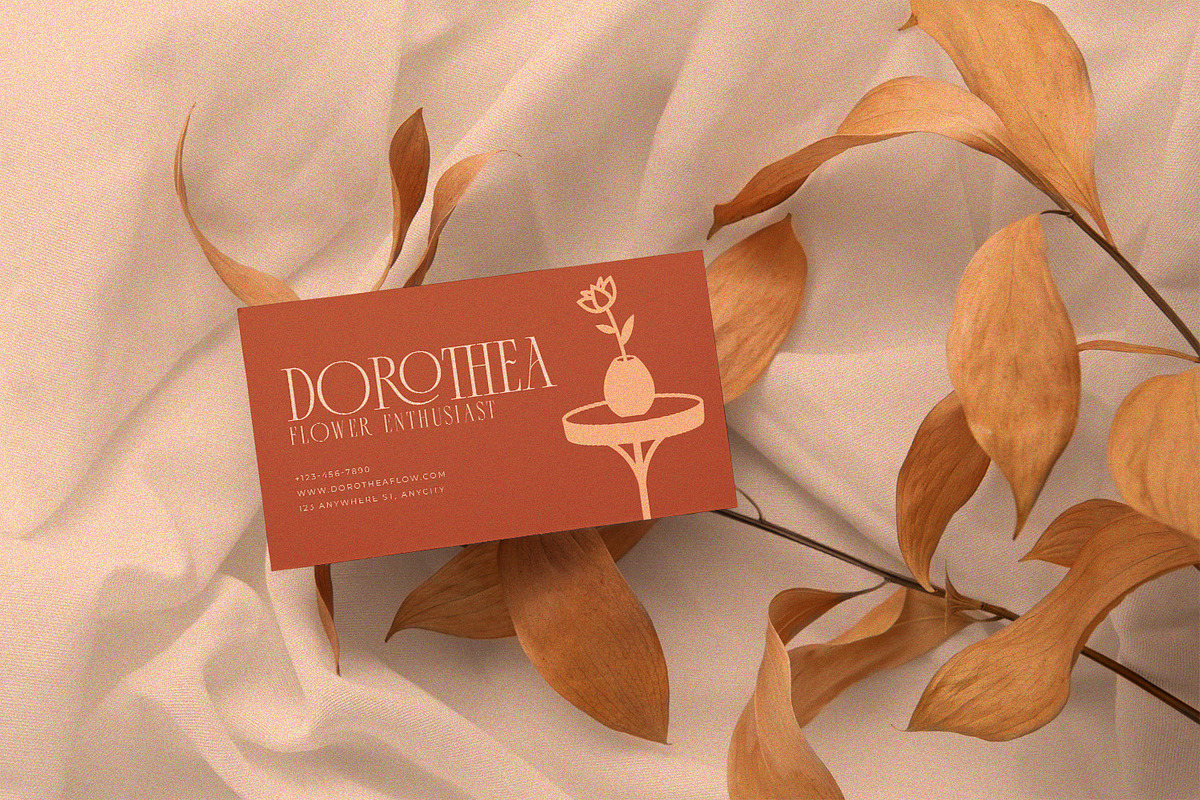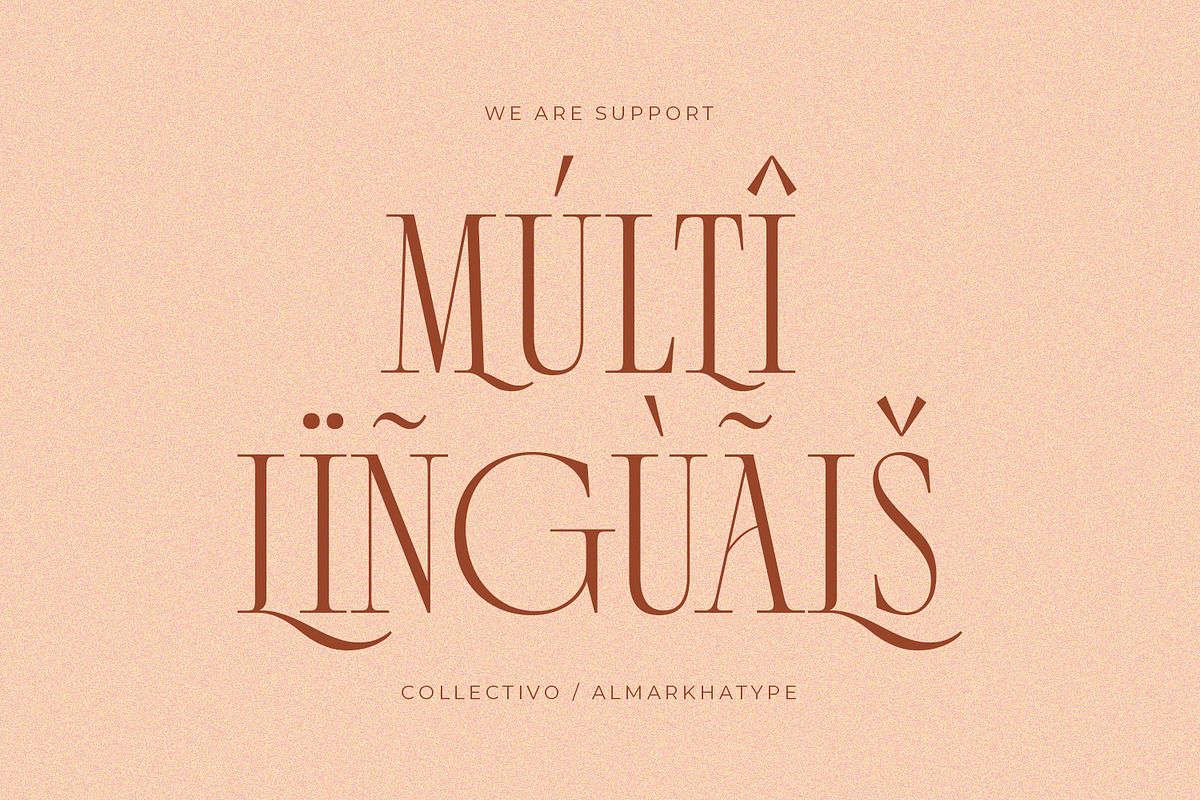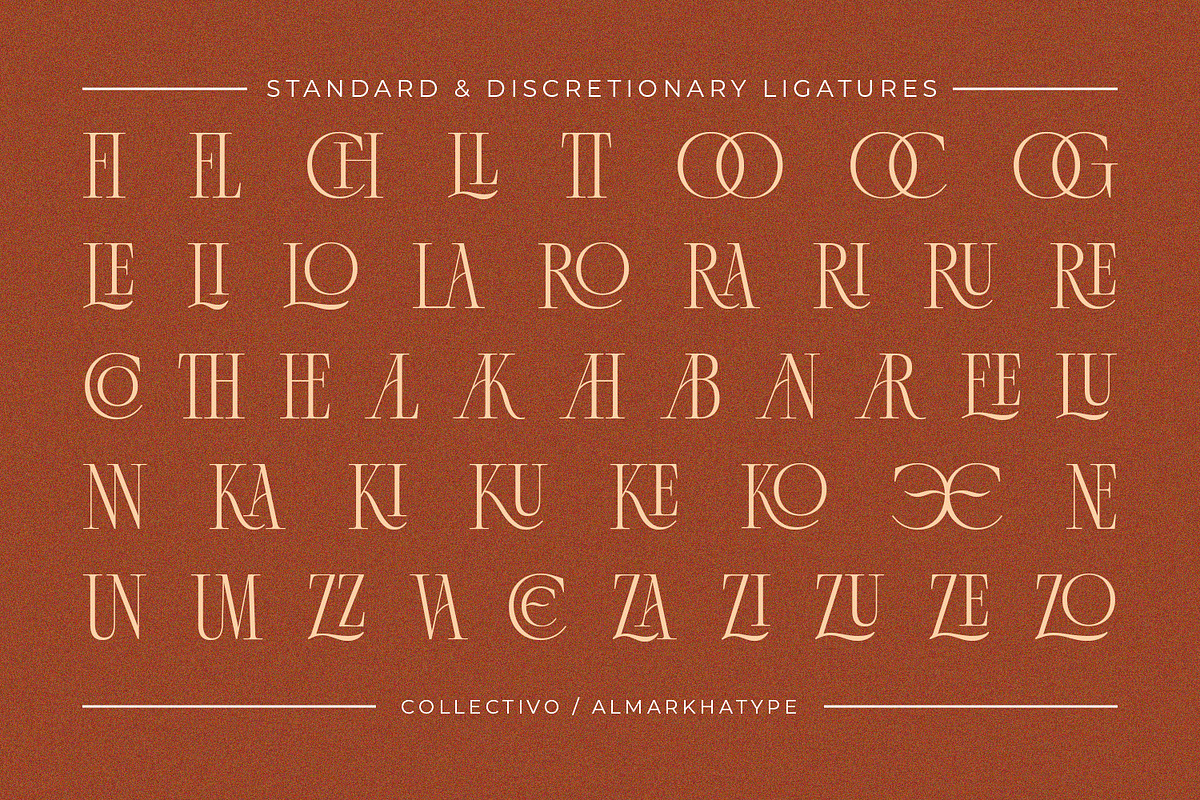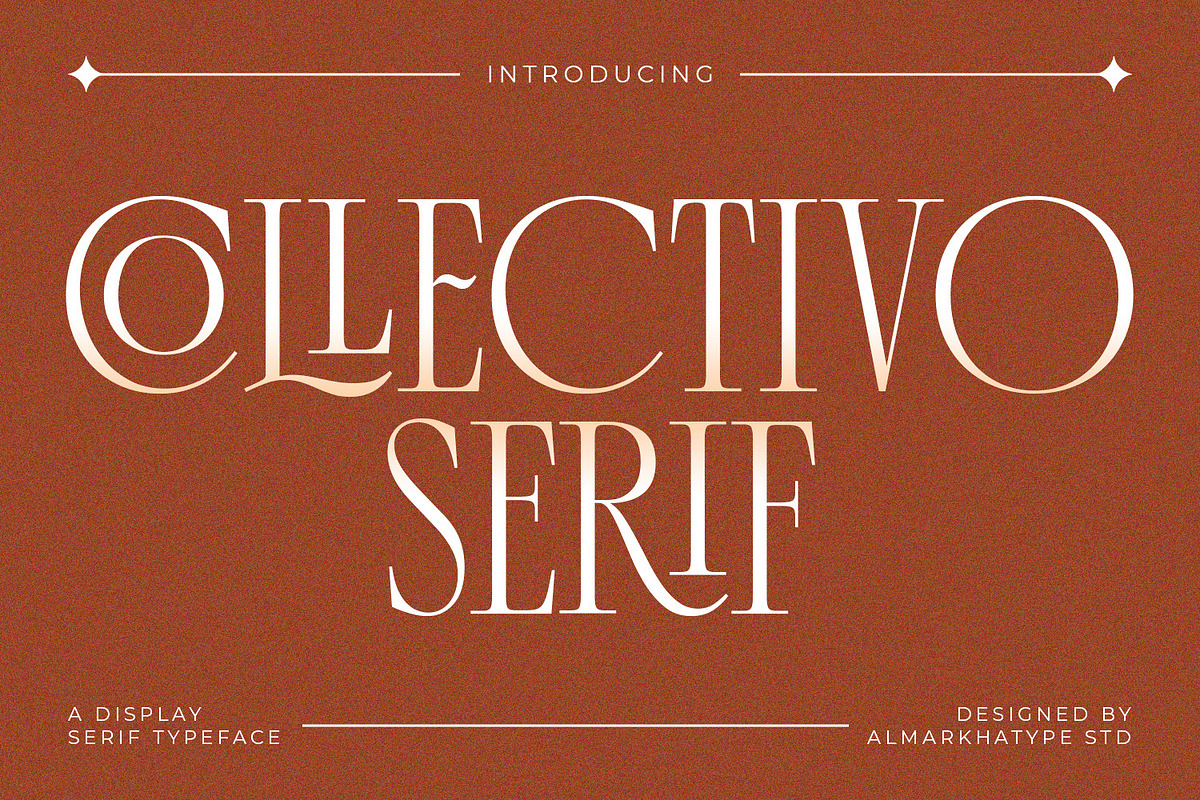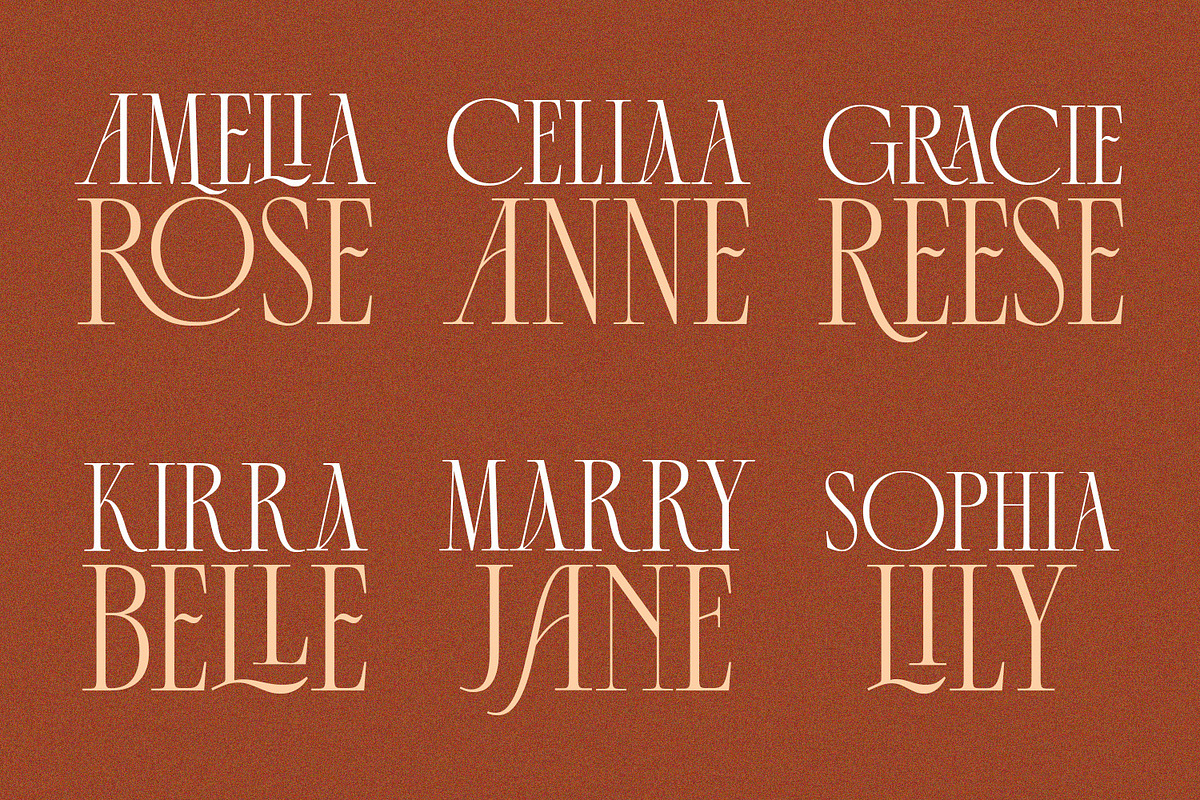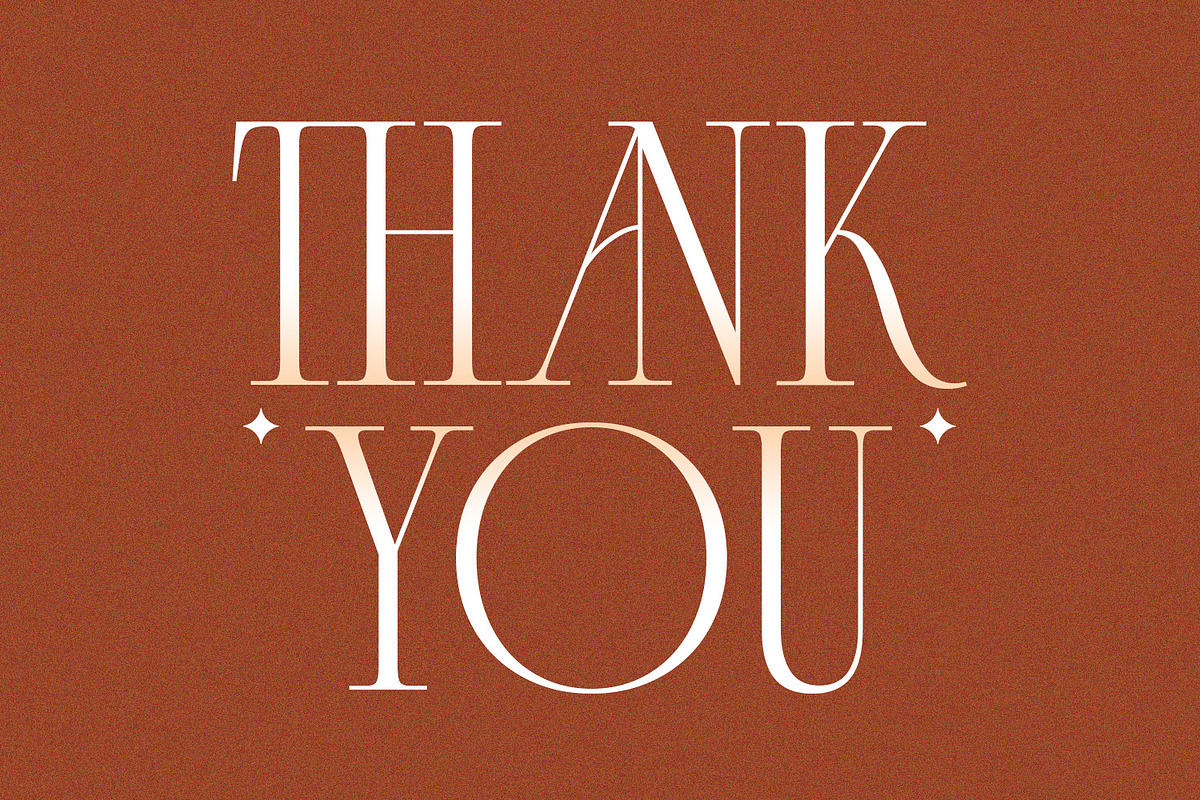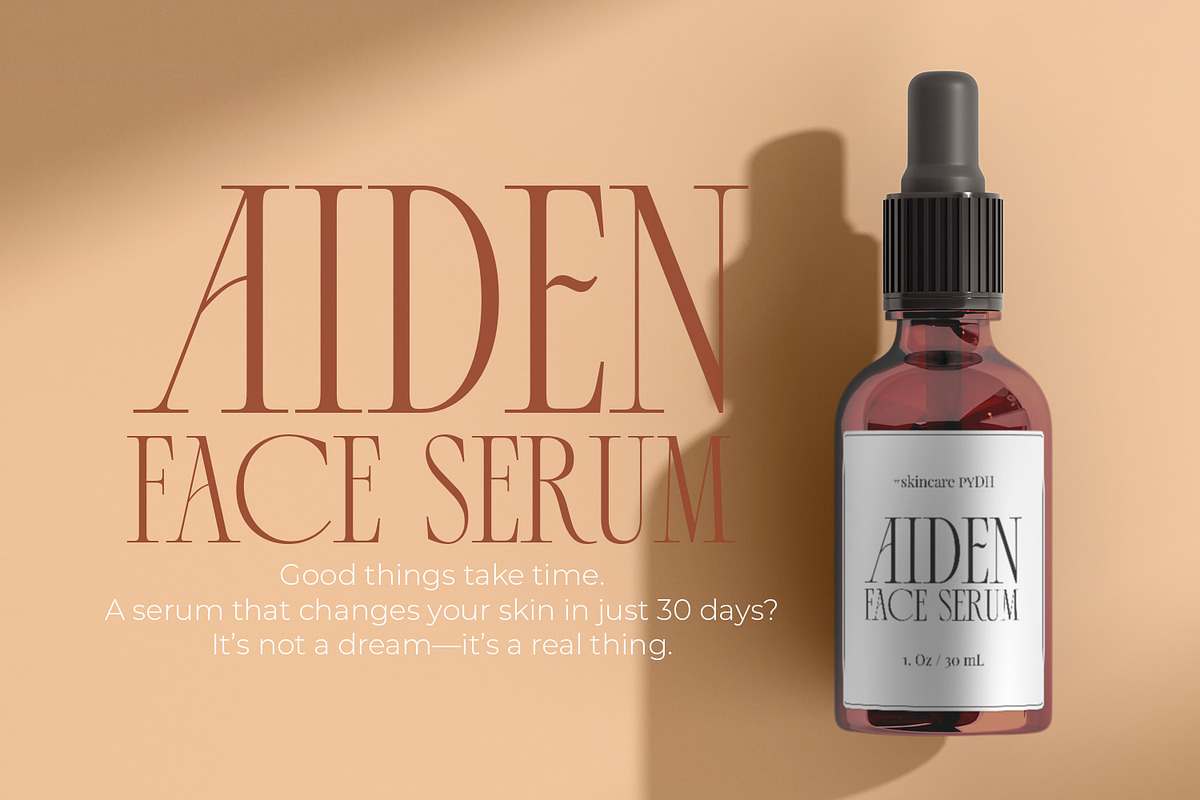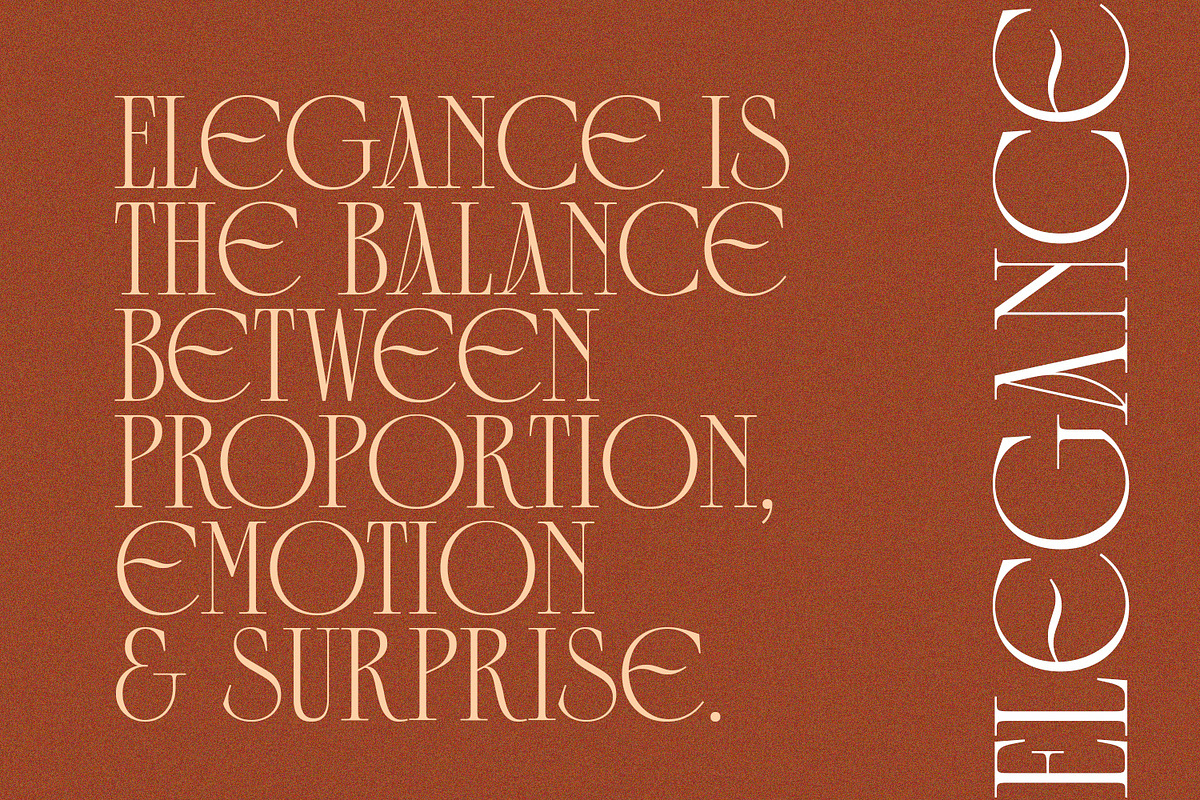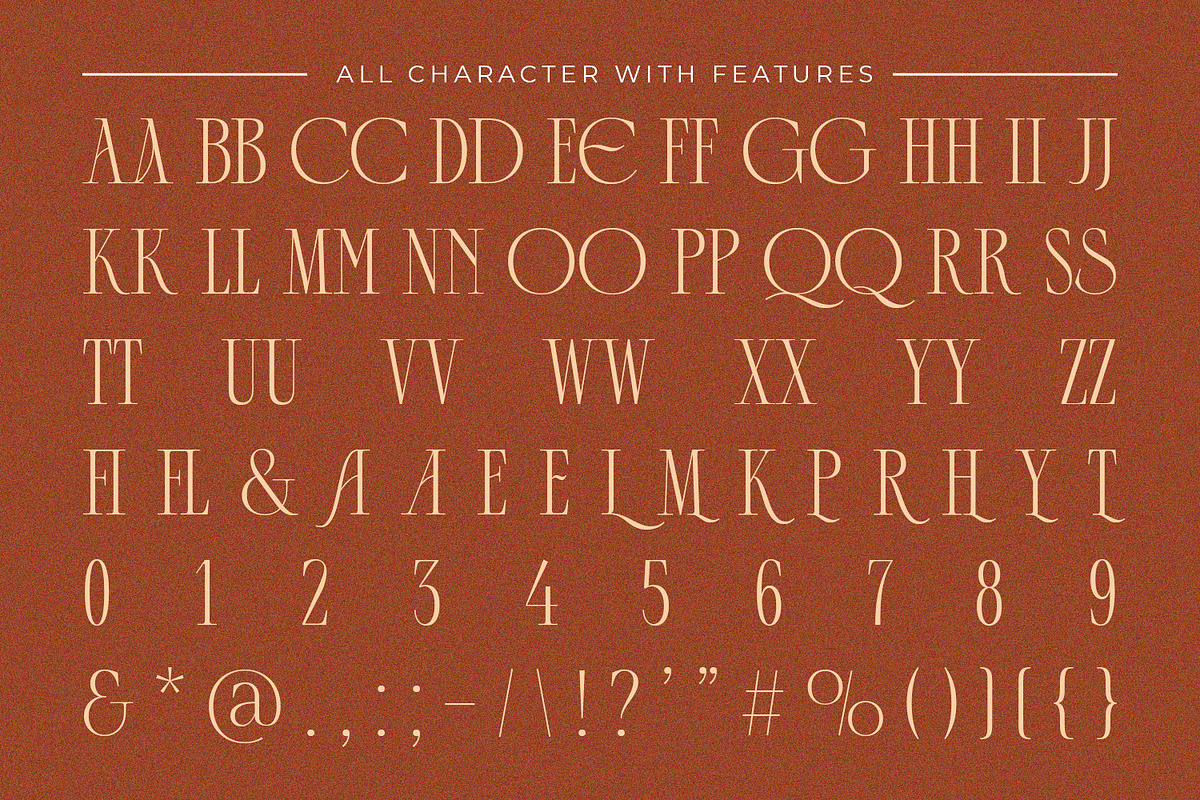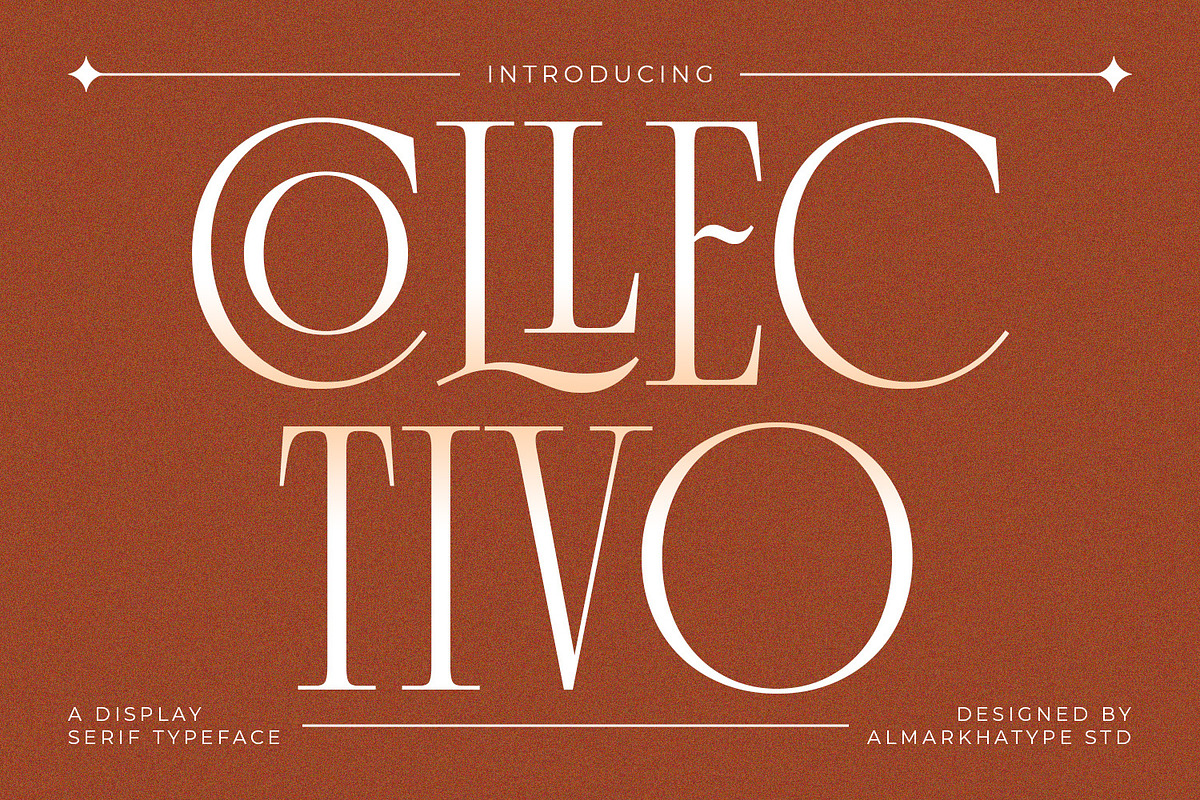
Collectivo – Stylish Condense Serif
Elevate your designs with Collectivo, a stylish font boasting elegant ligatures for a seamless, sophisticated appearance. Inspired by minimalist logos, it’s ideal for crafting templates, brochures, videos, advertising, branding, logos, and beyond. Perfect for enhancing word-mark logos, monograms, or pull quotes, Collectivo offers a range of alternates and ligatures for smooth character connections. Plus, its extensive character set ensures comprehensive support for multilingual languages. Add a touch of unique charm to your projects with Collectivo today!
- Ligatures glyphs
- Alternate glyphs